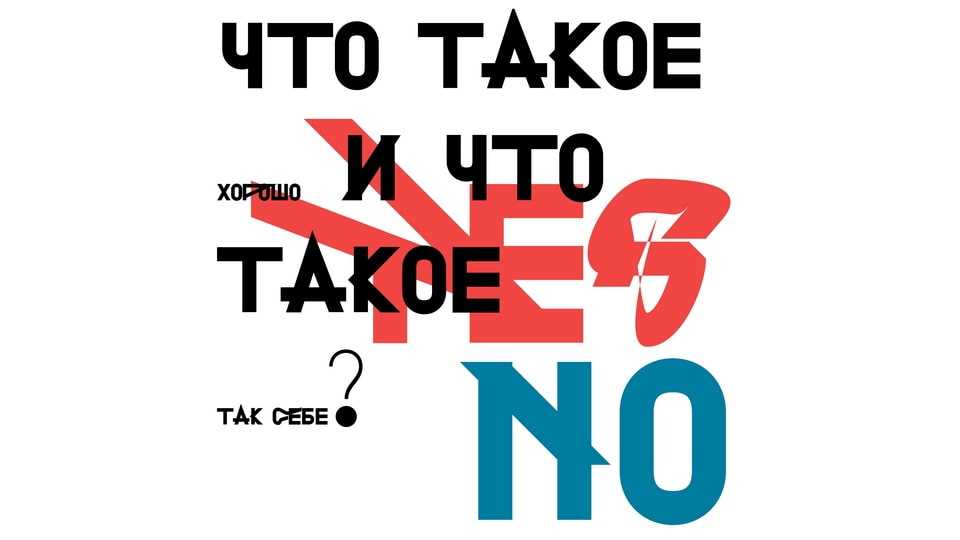
Download Grunt font, a wild, raw, imperfect display typeface with a bold personality. Grunt is perfect for loud messages and eye-catching typography.
Designer: Evgeniy Artsebasov